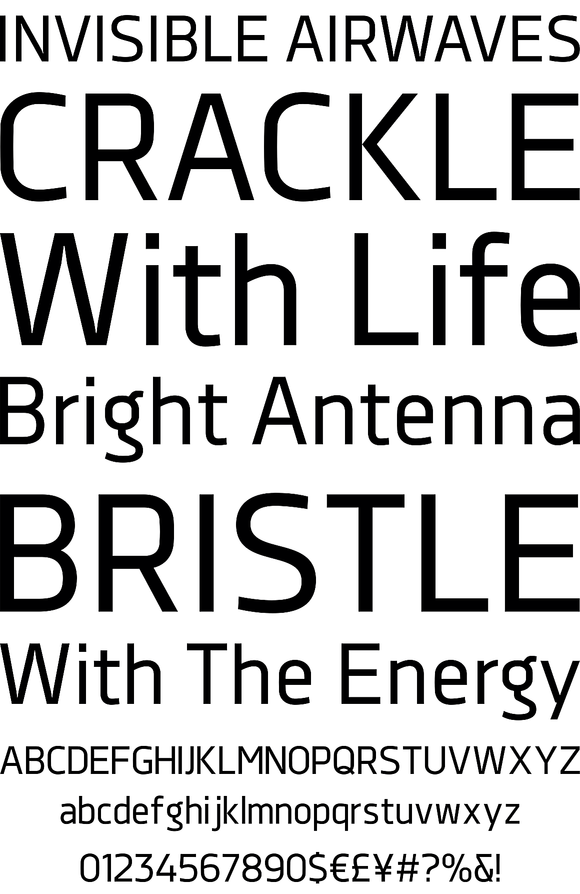
Decima Nova is a geometric sans serif typeface family, built in eight styles. The typeface is ideal for use in display sizes, but also is quite legible in text and is well suited for editorial and identity design.